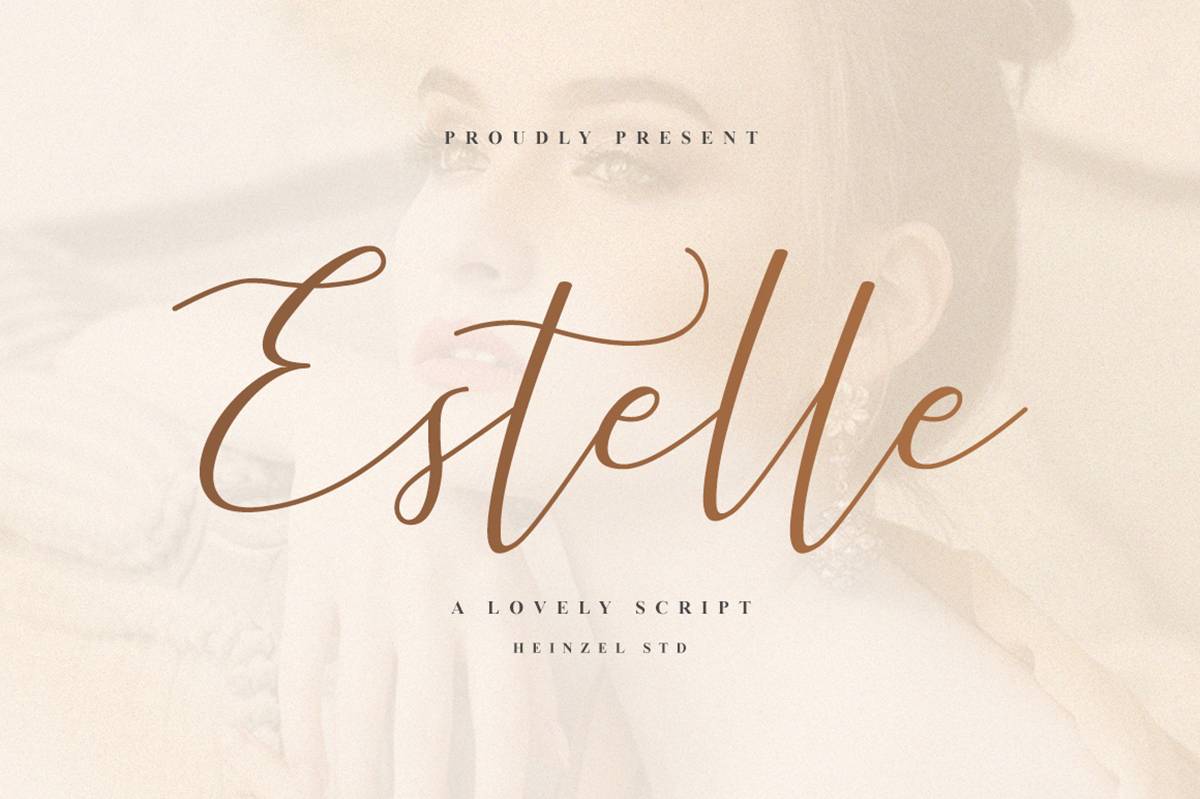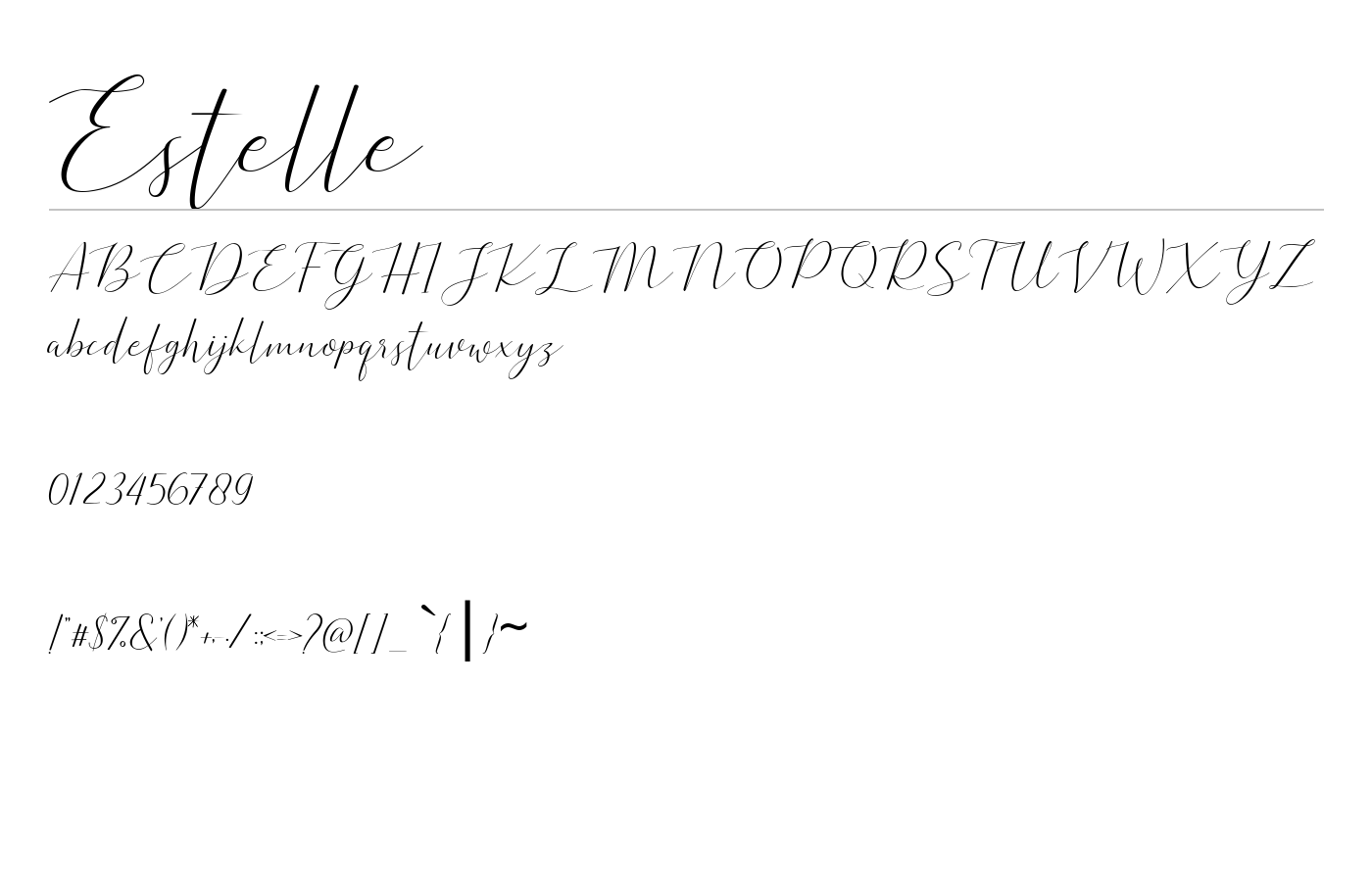
Estelle is a delicate and elegant script font characterized by thin, flowing strokes and graceful curves, giving it a refined and sophisticated feel. Its light, airy letterforms with subtle flourishes make it ideal for wedding invitations, luxury branding, and editorial designs where a touch of romance and class is desired. This font works best in larger sizes for headlines or decorative text to showcase its intricate details and stylish charm.
| Font family | Estelle Font |
| Designer | Nofi Sofyan Hadi |